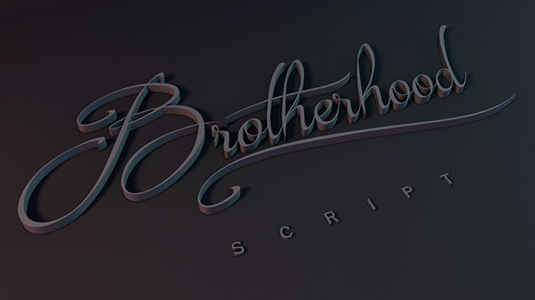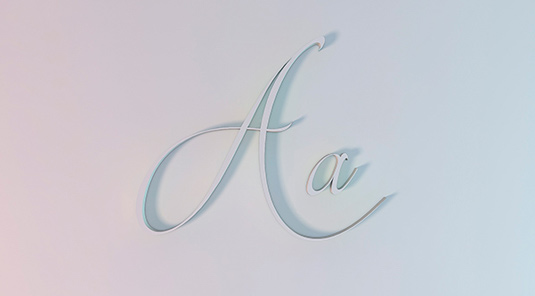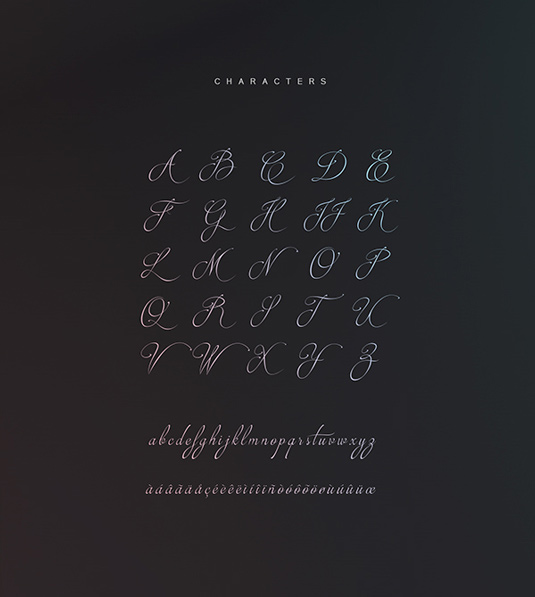
Font of the day: Brotherhood Script
Brotherhood Script by Youssef Habchi
Today's typeface of choice is this beautiful font, Brotherhood Script by designer Youssef Habchi. A clean and stylish typeface, Brotherhood Script is great for creating elegant logo and stationery designs.